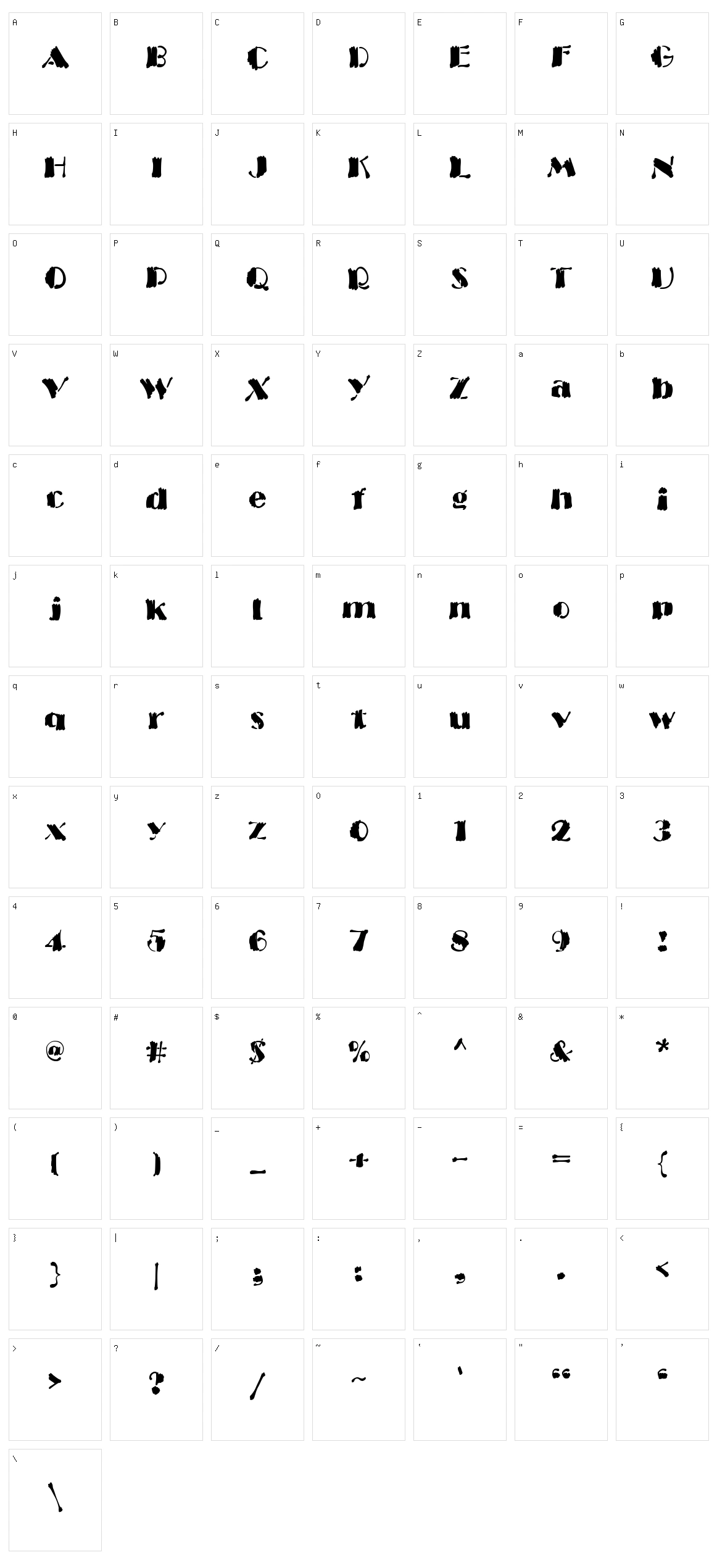
What is "Black Brush"?
This is the latest font from Tinten-Fass.Com Design! It is whacky and fun,
looks great as text, and guaranteed to make your documents more fun!